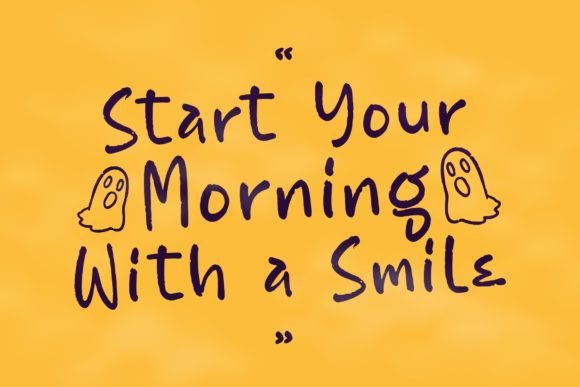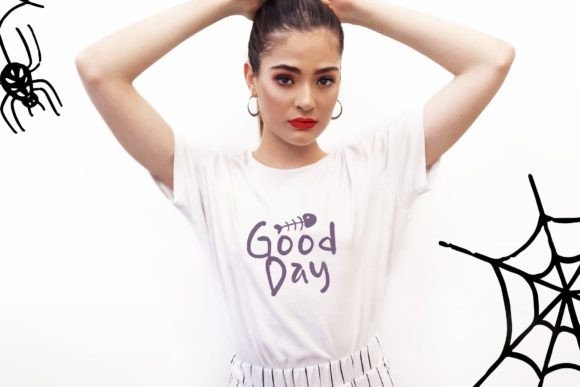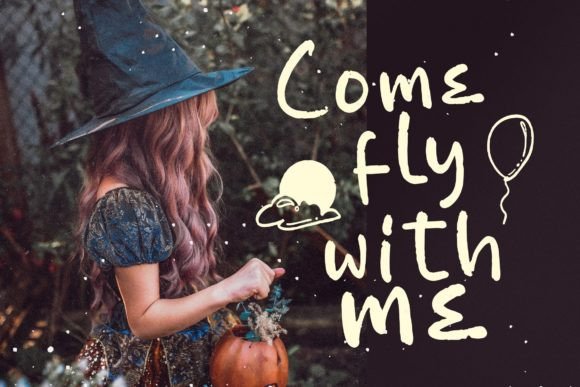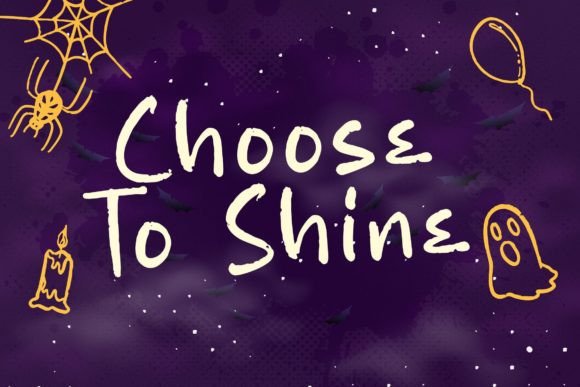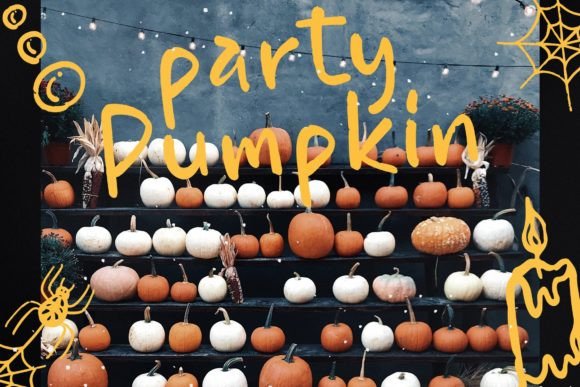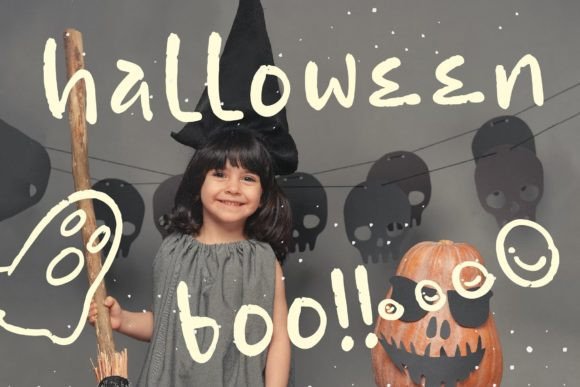
The Spooky-Chic Charm of Caroline Display Font
I still remember the year I decided to create a Halloween-themed party invitation for my friends. I had all the design elements ready – the creepy graphics, the eerie color scheme, and the perfect layout. But, I was stuck on one thing: the font. I wanted something that would capture the whimsical and spooky essence of the holiday. That’s when I stumbled upon Caroline Display Font, and it instantly became the star of my design.
A Personal Review of Caroline Display Font
Caroline Display Font is a fun and spooky handwritten font that has become a staple in my design toolkit. Here’s what I love about it:
• ✨ Whimsical and quirky, perfect for Halloween designs
• ✅ Easy to read, even in smaller sizes
• 💕 Unique character set, including spooky symbols and ornaments
• 🎃 Versatile, suitable for various design projects, from party invitations to social media graphics
While Caroline Display Font is an excellent choice for many design projects, it’s not without its quirks. Here are a few things to keep in mind:
• 🤔 Limited suitability for formal or professional designs, as it’s quite playful
• ⚠️ May not be the best choice for very long texts, as it can be a bit tiresome to read
The Inspiration Behind Caroline Display Font
Caroline Display Font was inspired by the spooky and mystical atmosphere of Halloween. The designer aimed to create a font that would capture the essence of the holiday, with its quirky and whimsical feel. The result is a font that’s perfect for adding a touch of personality to your designs.
Font Name Caroline Display Font
Author Glorytype Studio
What is Caroline Display Font best suited for? Caroline Display Font is perfect for Halloween-themed designs, party invitations, social media graphics, and other creative projects that require a touch of whimsy and spookiness.
Does Caroline Display Font support OpenType features? Yes, Caroline Display Font supports OpenType features, including glyphs, stylistic alternates, and ligatures.